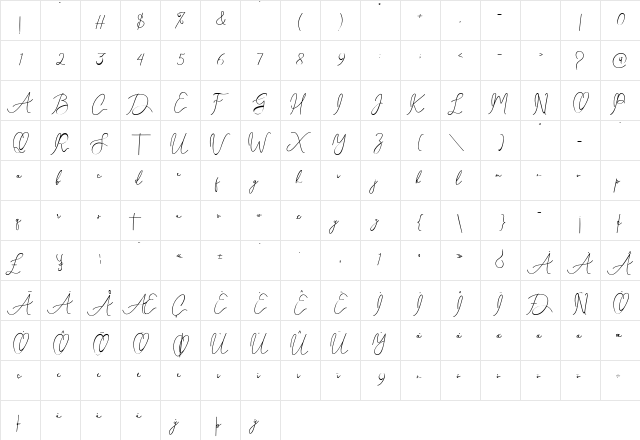
Celesta diaz Regular
Design Context for Celesta diaz Typeface
Celesta diaz is a composed and adaptable typeface that performs quietly and consistently across a wide range of design contexts.